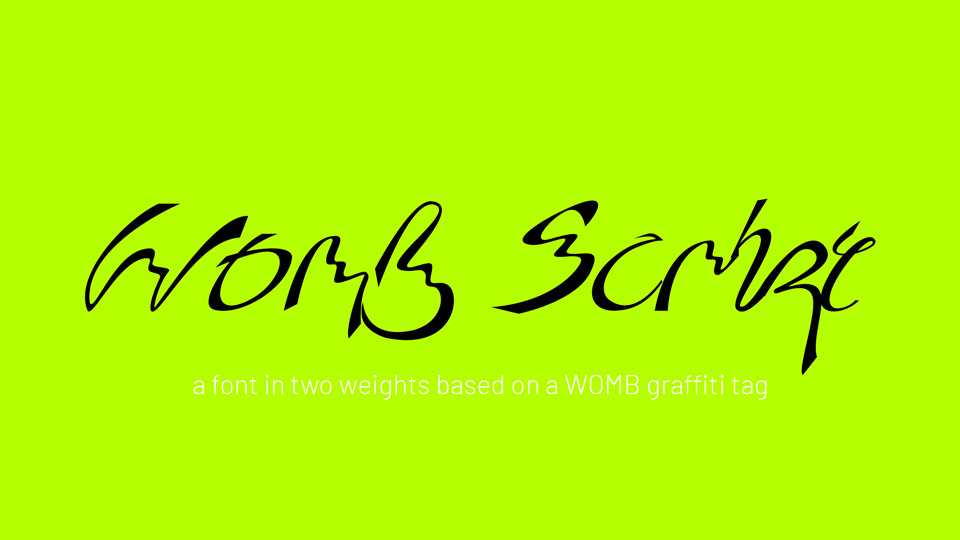
Download Womb Script typeface, a handwritten font family in two weights based on a WOMB graffiti tag. Womb Script is perfect for posters, prints and unique artworks.
Designer: Rory King